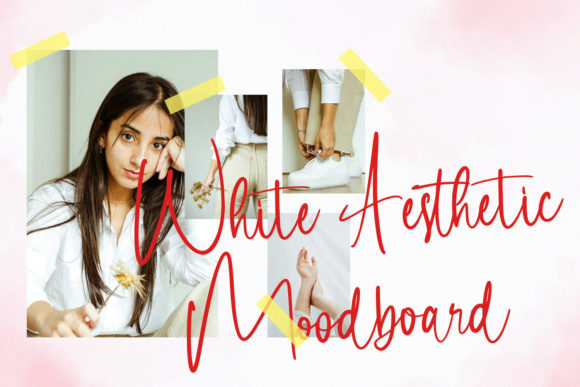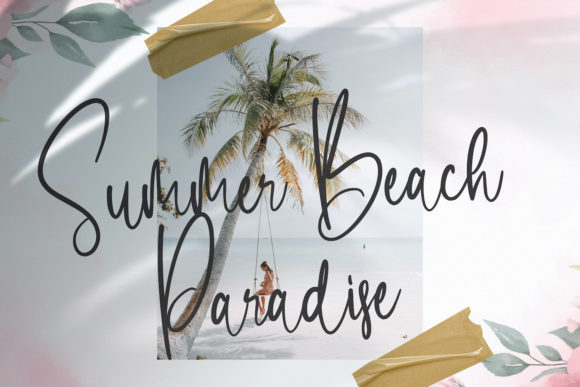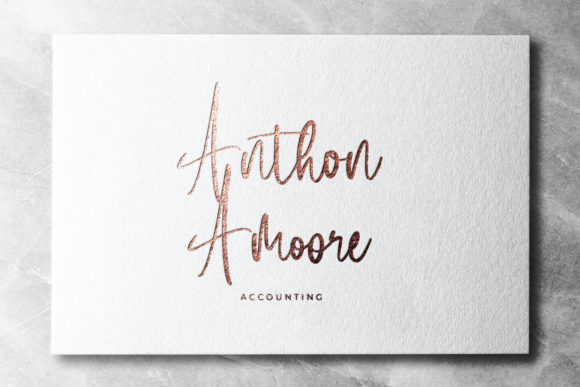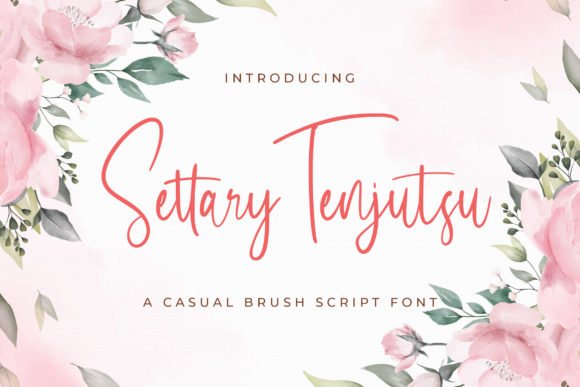
Introduction to Settary Tenjutsu Font
Settary Tenjutsu is a delicate, elegant and flowing handwritten font.
It has beautiful and well balanced characters and as a result, it matches a wide pool of designs Add it to your most creative ideas and notice how it makes them come alive.